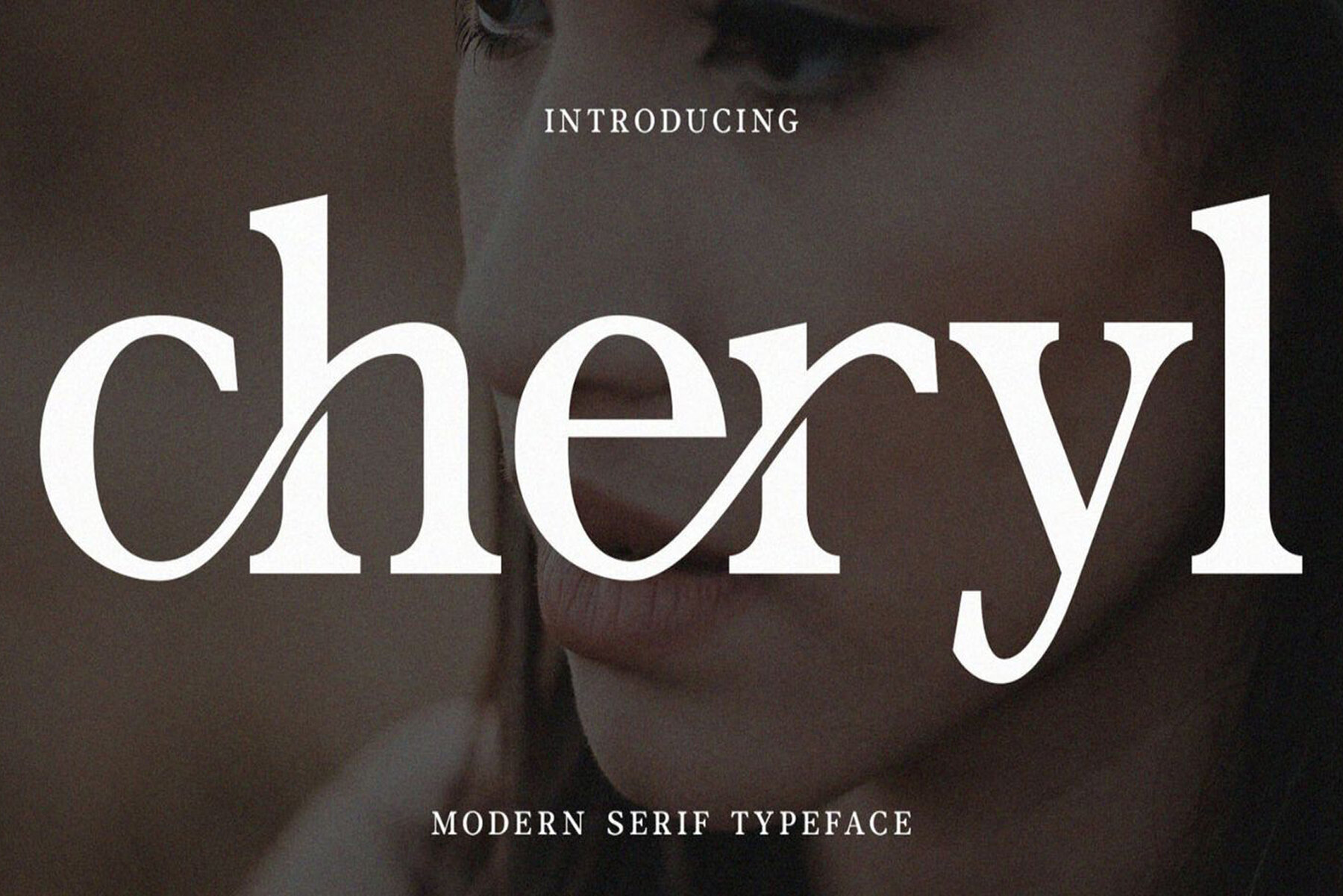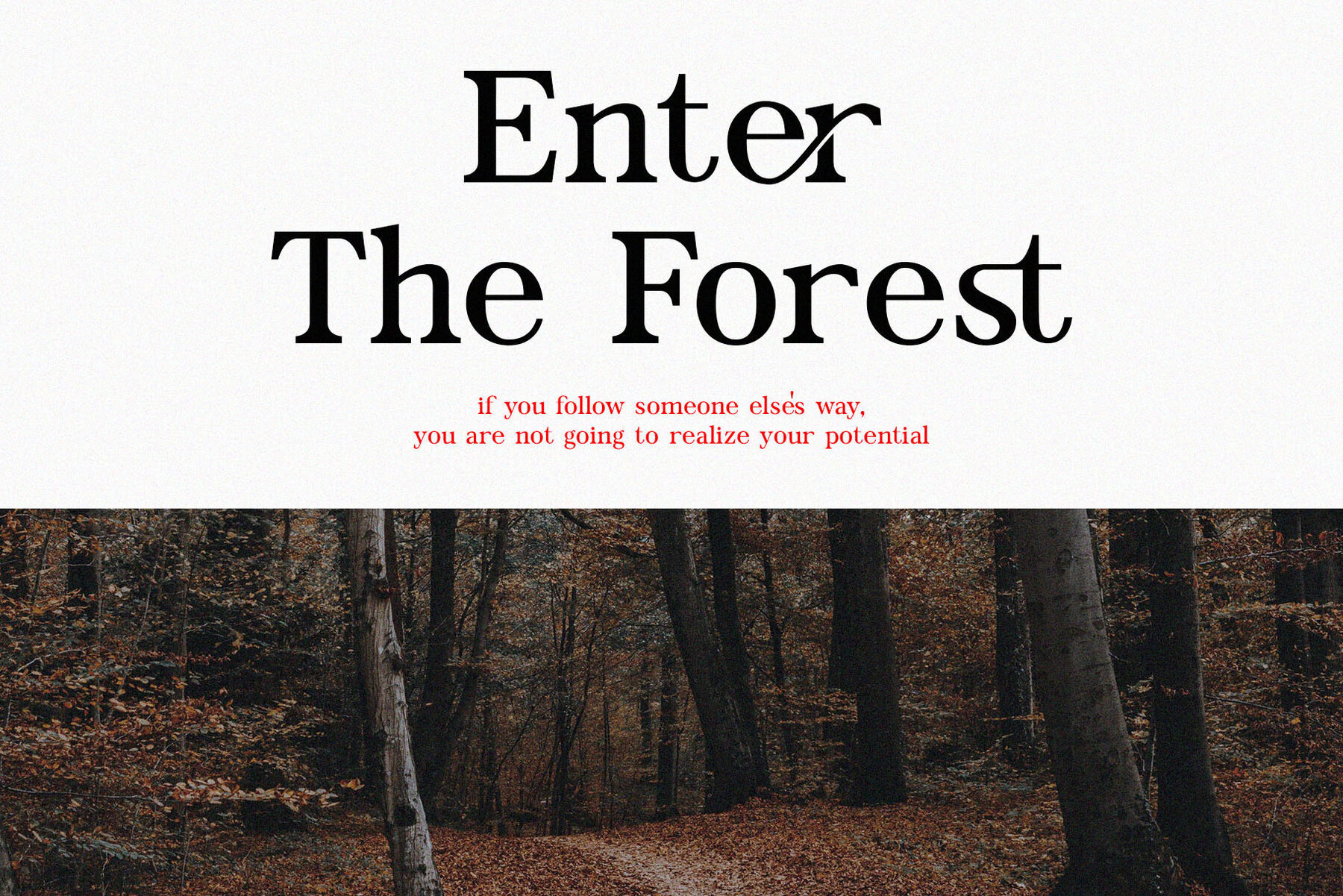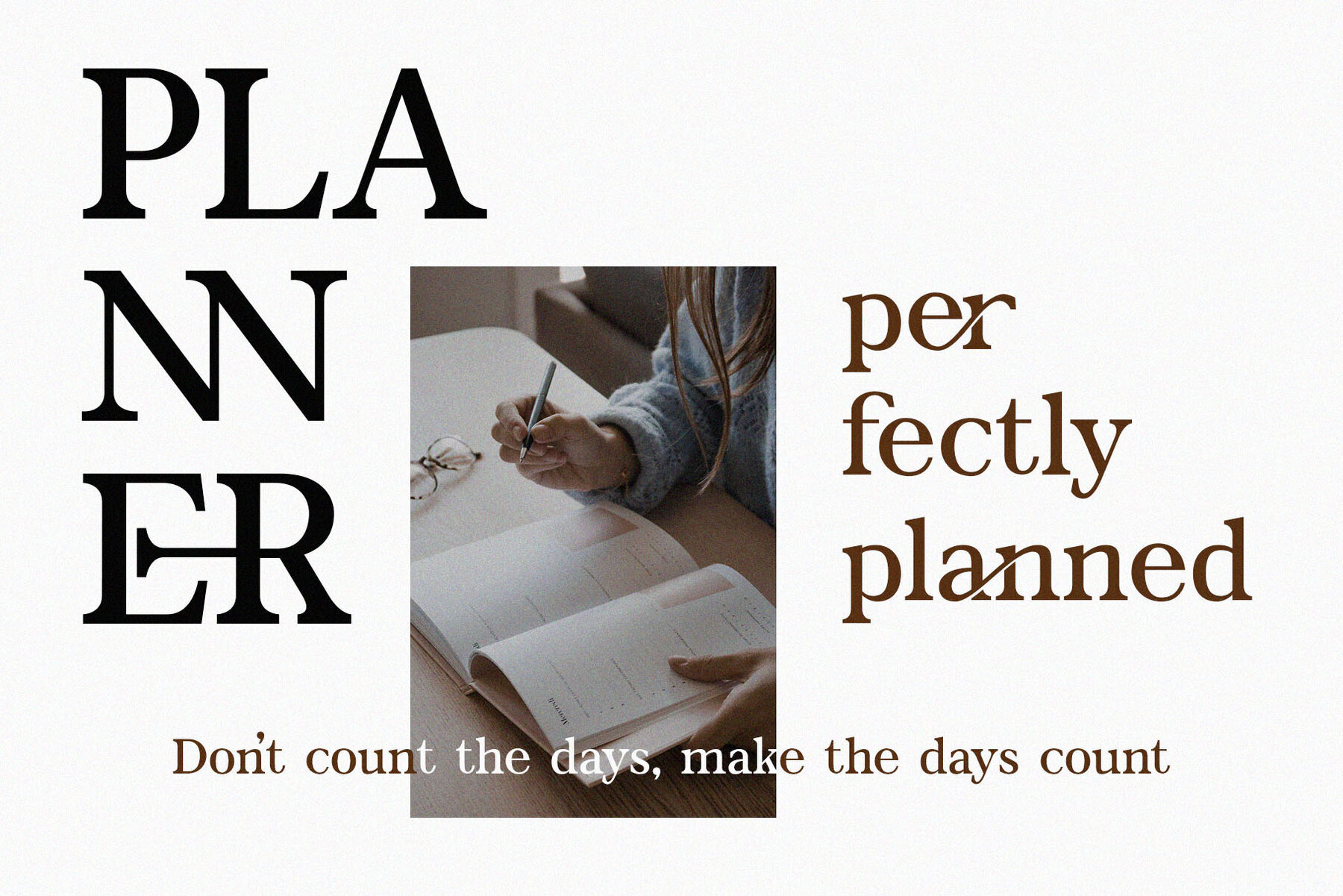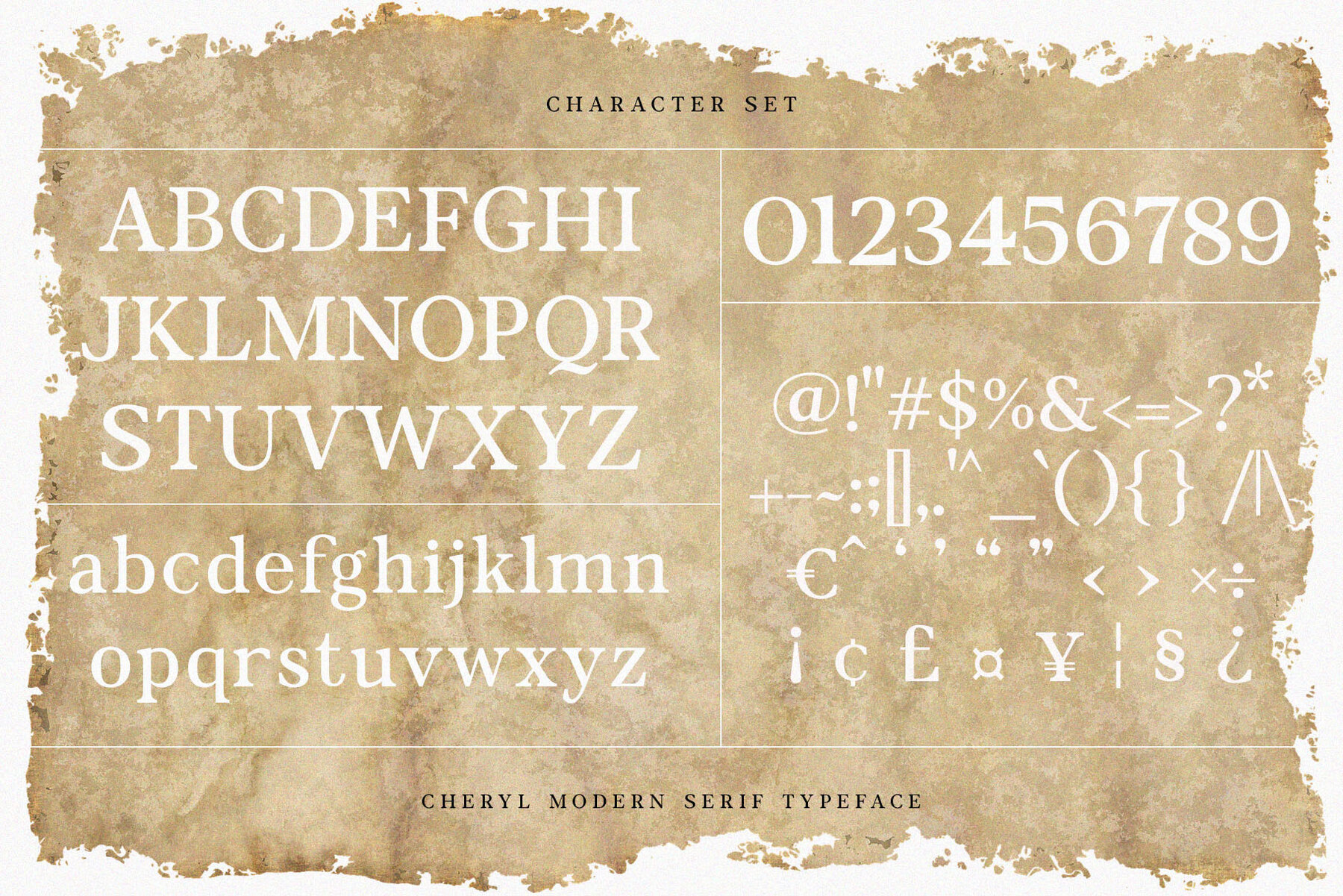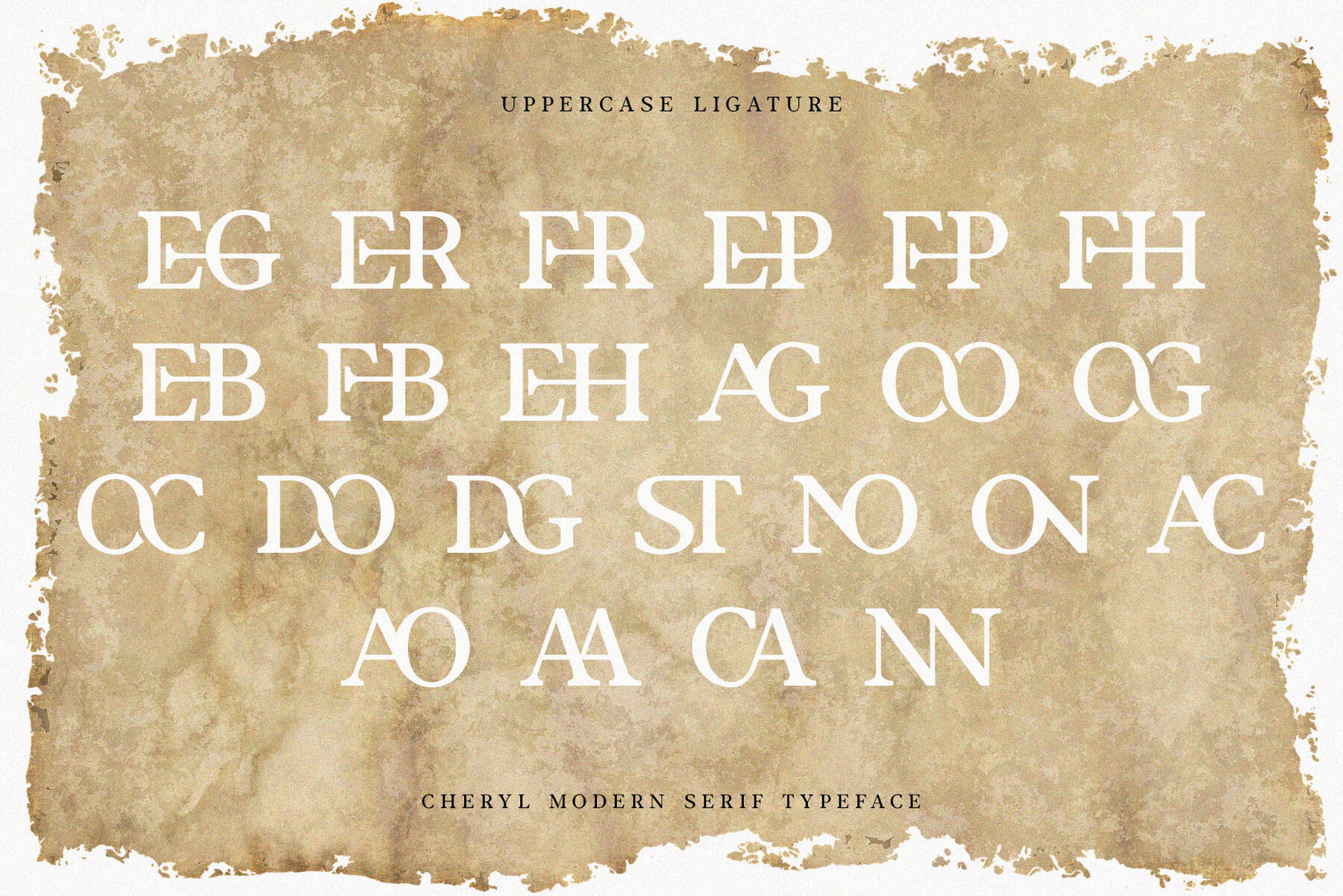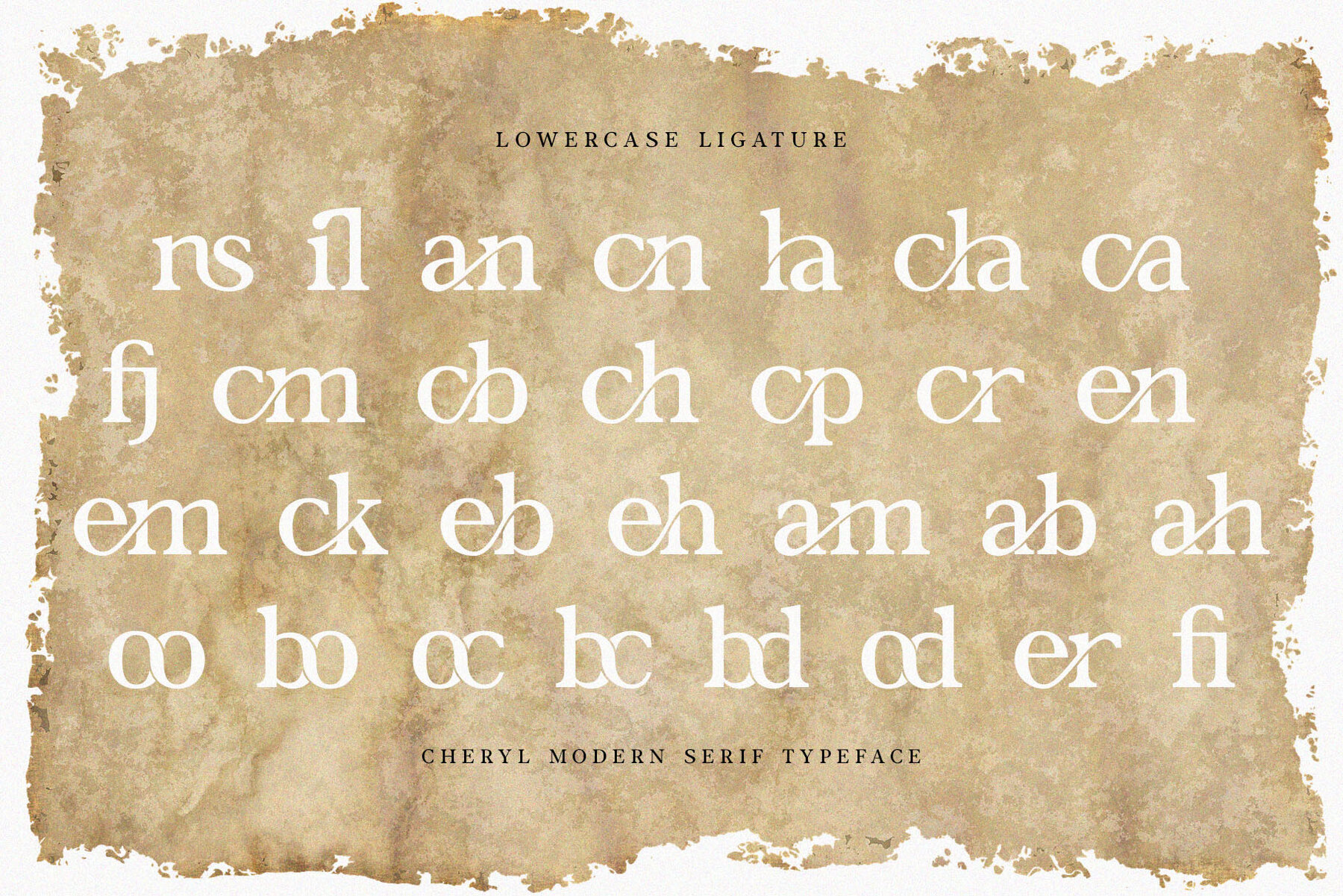
Cheryl Font
Cheryl Regular
Cheryl is a timeless serif font that elegantly combines a modern aesthetic with nostalgic charm. Ideal for logos, magazines, social media posts, and a variety of design projects, this font infuses a touch of sophistication into any creative endeavor. If you're seeking a font that blends classic refinement with a contemporary flair, Cheryl is designed to elevate your designs.Cheryl: Classic Serif with Modern Elegance
Ideal for Various Designs